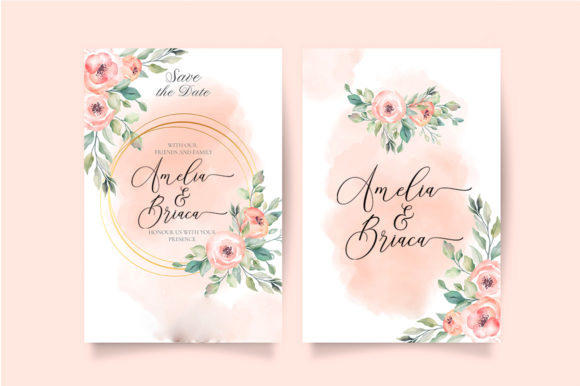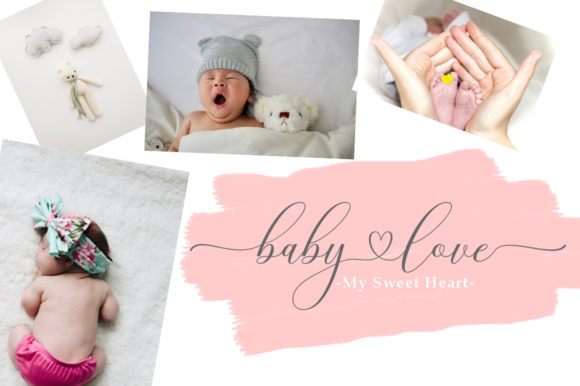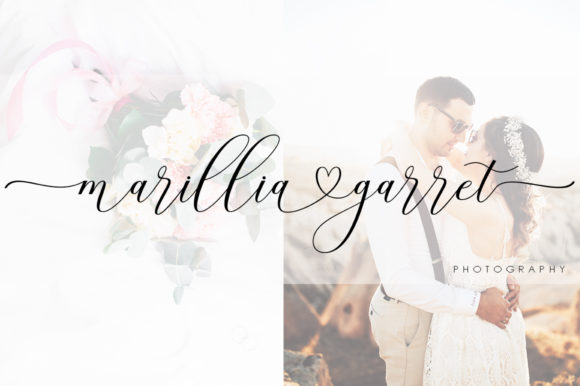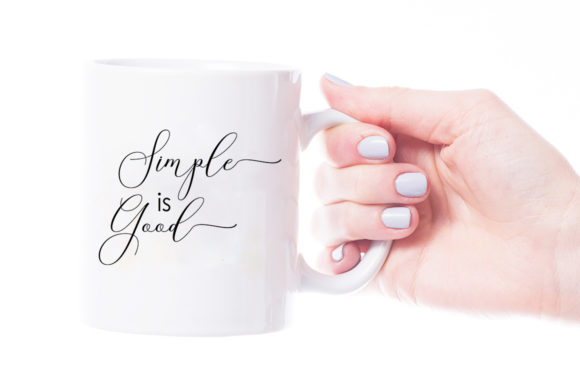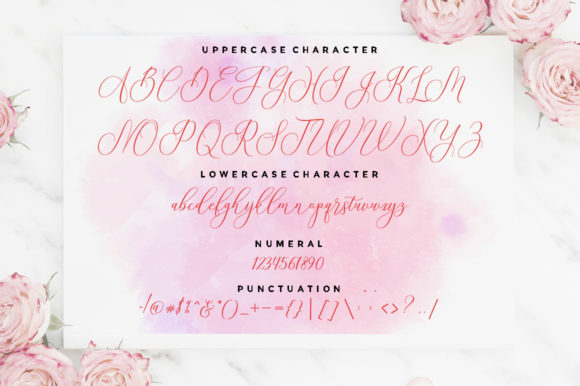
About Hello Heart Font
Hello Heart feels equally charming and elegant. It looks lovely on wedding invitations, thank you cards, quotes, greeting cards, logos, business cards and every other design which needs a handwritten touch.